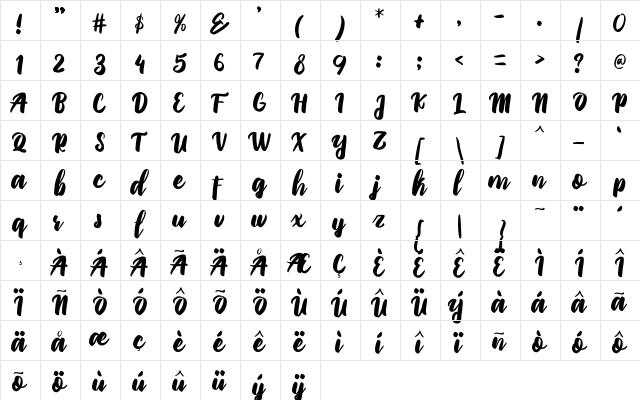
Priscillia Script Medium
Design Context for Priscillia Script Typeface
Priscillia Script flows with the natural rhythm of handwritten lettering, making it ideal for designs that call for warmth and personal expression.
Font Pairing: Combine Priscillia Script with a simple geometric sans for maximum contrast — the tension between flowing curves and clean structure is a classic typographic pairing.
Pro Tip: Pair Priscillia Script with a clean sans-serif for supporting text. The contrast between fluid script and geometric structure creates an elegant typographic hierarchy.